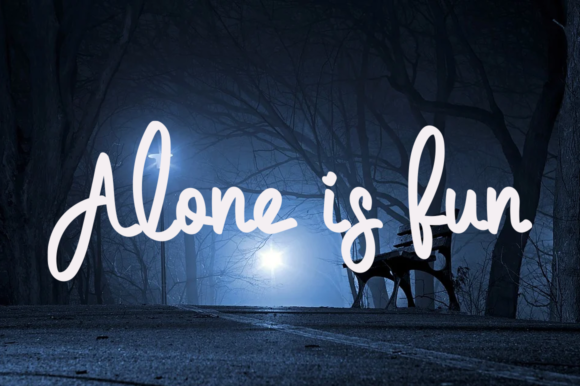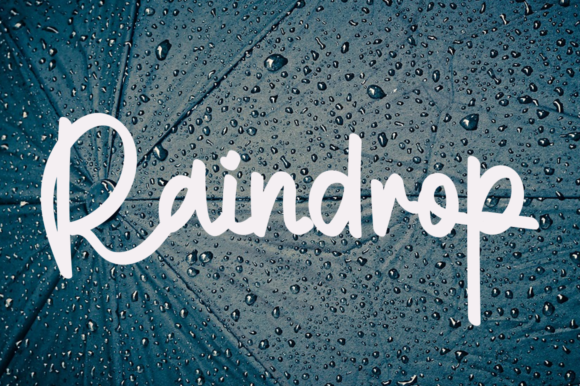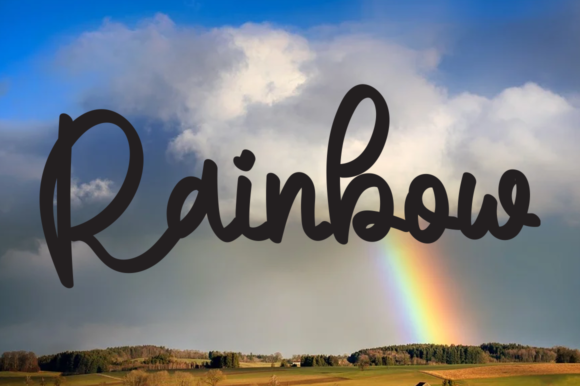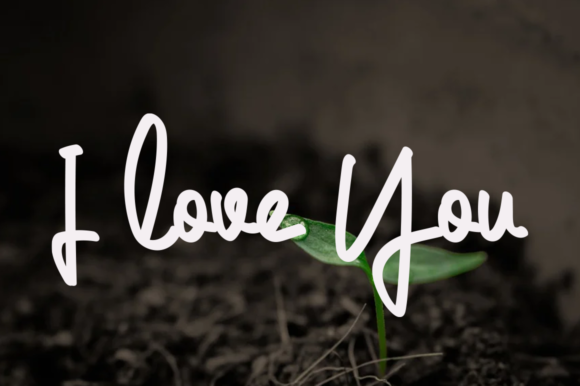
About The Rain Font
The rain is a dainty, genuine and cursive handwritten font. This gentle typeface will look gorgeous on a variety of design ideas. It will add a joyful and romantic touch to each of your projects!